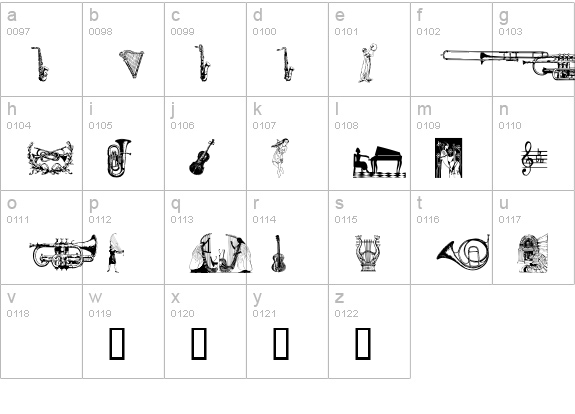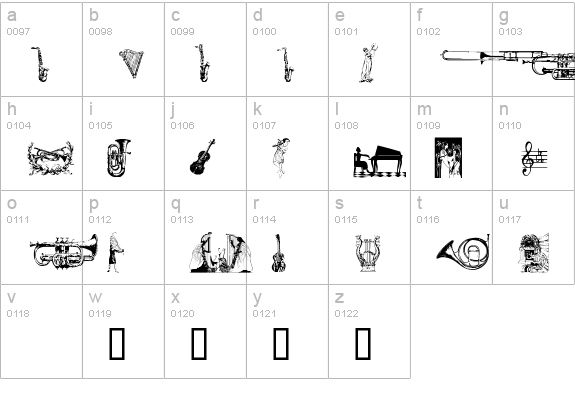
wmmusic2 Font Details
The wmmusic2 font is a versatile and stylish typeface that is perfect for adding a touch of elegance to your projects. With its intricate design and unique flair, this font is sure to make a statement. Whether you are creating a poster, invitation, or logo, wmmusic2 font will give your work a sophisticated and professional look. Best of all, wmmusic2 font is completely free to download! You can easily access this stunning font at FontsMarket.com, where you can explore a wide range of free fonts to elevate your design projects. Don't miss out on this opportunity to enhance your creativity with the wmmusic2 font today!